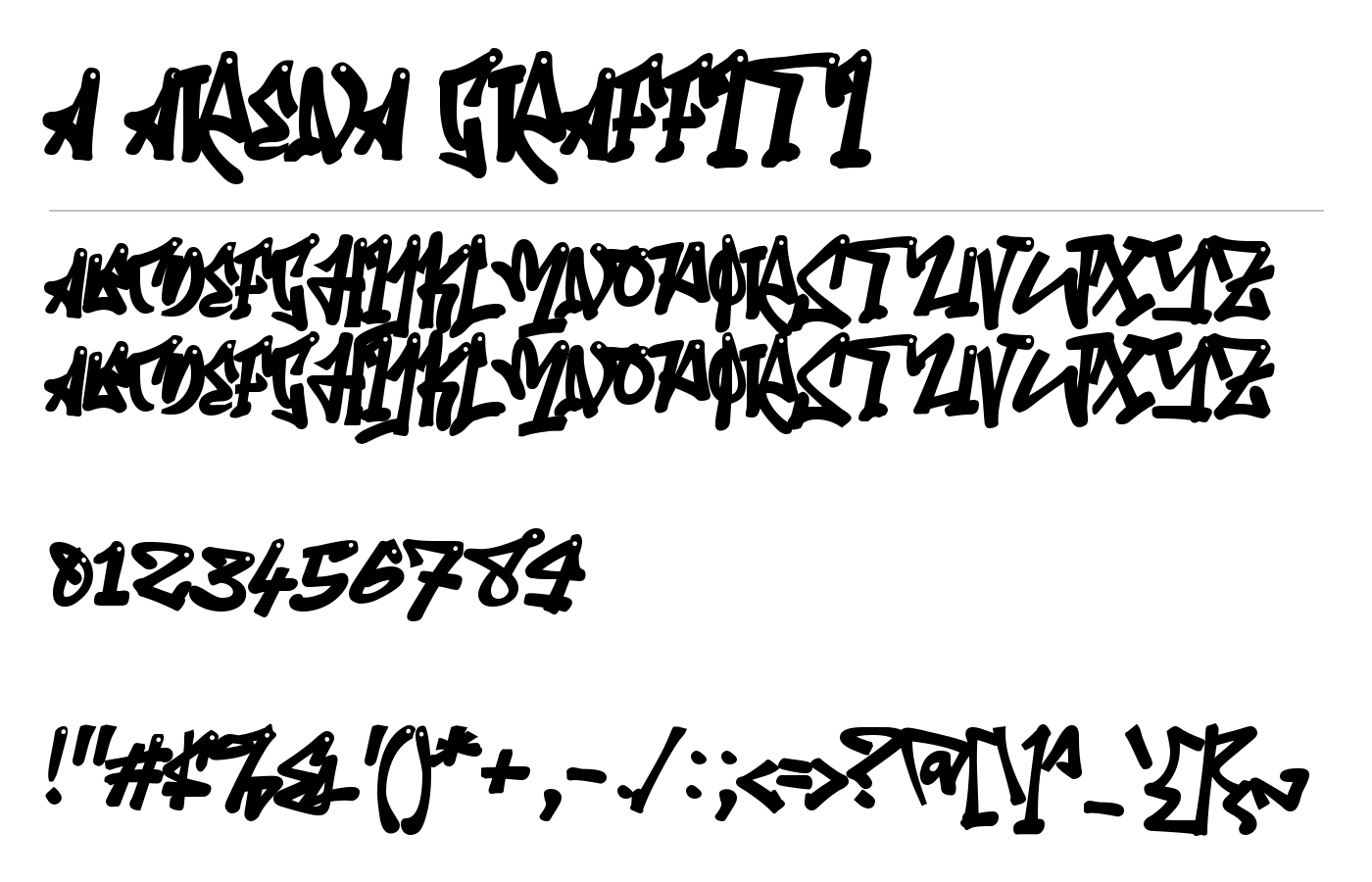
Arena Graffiti is a bold, expressive script font that captures the dynamic energy and edgy style of urban street art. Its irregular, flowing shapes with thick strokes and playful dots convey a raw, rebellious vibe, making it perfect for creative projects seeking a strong, youthful, and informal personality. This font works best in posters, logos, and branding where an attention-grabbing, artistic touch is desired.
a Arena Graffiti Font
About a Arena Graffiti Font